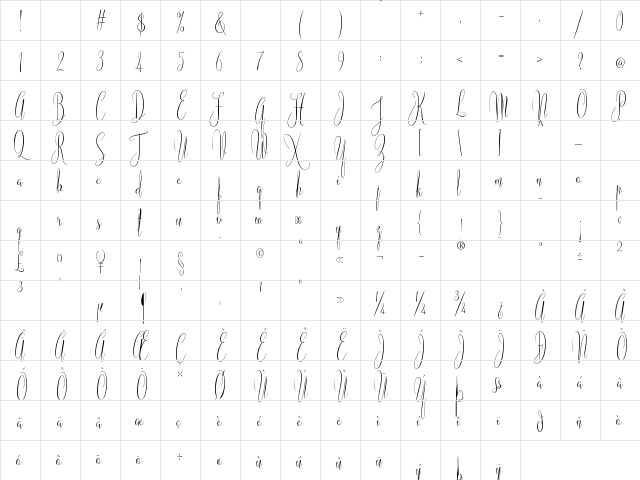
American Script Regular Font Preview
American Script Regular
Design Context for American Script Typeface
American Script brings a calligraphic fluidity to the page — its connecting strokes and expressive curves give it an unmistakably human quality.
Font Pairing: Combine American Script with a simple geometric sans for maximum contrast — the tension between flowing curves and clean structure is a classic typographic pairing.
Pro Tip: Use American Script for short runs of text — names, titles, or taglines. Extended body copy in script faces tires the eye quickly.